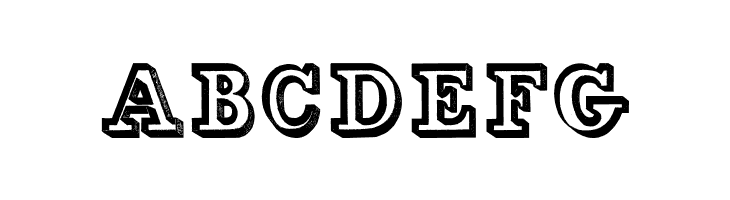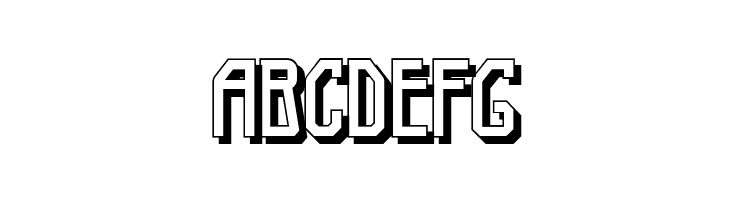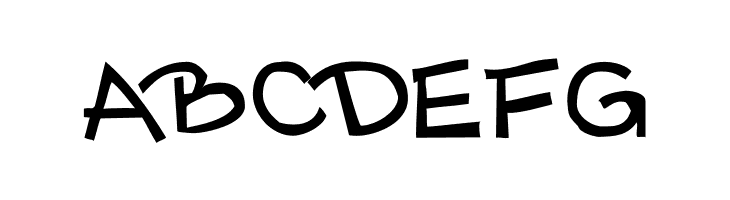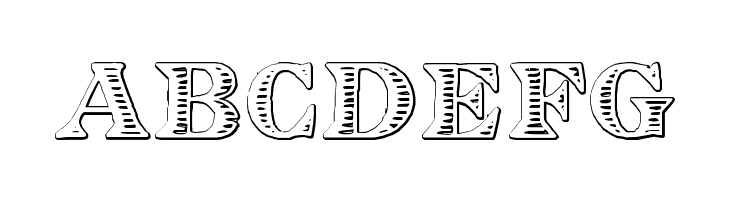
• EB Garamond Regular SmallCaps
A classic serif font with elegant small caps and refined detailing.
• Echo
A bold, decorative font with a dynamic echo effect.
• Echo Deco
A bold, modern font with a mix of solid and striped elements, offering a futuristic and sophisticated look.
• Edd's Font
• Edelsans
A modern sans-serif font with geometric shapes and uniform strokes.
• Edelsans-UltraLight
An ultra-light, minimalist font with a modern and sophisticated design.
• Eden
A bold, decorative font with a playful, mechanical design and three-dimensional effect.
• edgarpiramide
• EDGE Regular
• Education is a Way
A playful, hand-drawn font with a sketch-like, artistic style.
• Education What education
• Edward's Wedding
An ornate and decorative script font with elaborate swirls and flourishes.
• Eenvoudige Batik Regular
A decorative font with intricate, batik-inspired patterns and interlocking loops.
• effortless
A bold, rounded font with smooth curves and uniform strokes.
• efontalution_part1
An abstract, symbolic font with a blend of sharp angles and smooth curves.
• efontlution_part2
An ancient script-inspired font with bold, angular, and geometric characters.
• efontlution_part3